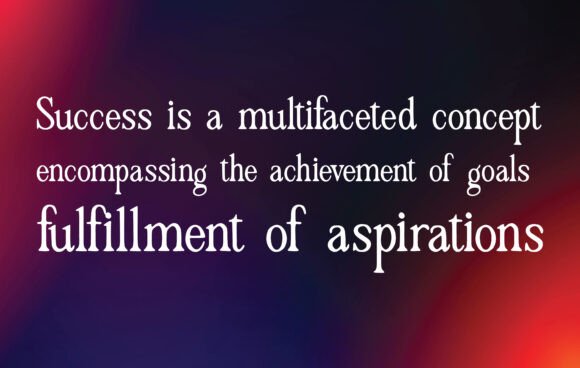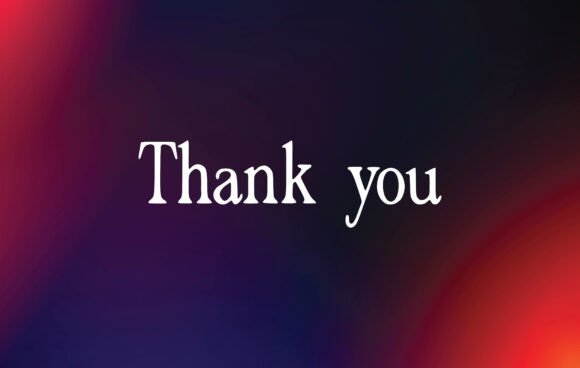
Introducing Azariella Font: The Ultimate Design Companion
Are you tired of using the same old fonts in your designs? Look no further than Azariella Font, the versatile and eye-catching typeface that’s about to become your go-to favorite. This font is designed to bring your creative ideas to life, with a clear and easy-to-read style that’s perfect for both titles and body text.
What Makes Azariella Font So Special?
Azariella Font is more than just a pretty face – it’s a highly functional font that’s designed to meet the needs of designers and crafters. Here are just a few reasons why Azariella Font stands out from the crowd:
- Versatility: Azariella Font is a highly versatile typeface that can be used in a wide range of design applications, from magazine covers and t-shirts to social media posts and branding.
- Readability: With its clear and easy-to-read style, Azariella Font is perfect for both titles and body text. Whether you’re designing a wedding invitation or a greeting card, this font makes it easy to communicate your message.
- Style: Azariella Font has a unique and stylish personality that adds a touch of sophistication to any design. Whether you’re going for a modern, trendy look or a more classic, elegant feel, this font fits right in.
Azariella Font is a dream come true for designers and crafters who are looking for a font that can keep up with their creative vision. Here are just a few ways you can use Azariella Font in your designs:
- Magazine Covers: Use Azariella Font to create eye-catching headlines and titles that grab readers’ attention.
- T-Shirts and Apparel: Add a touch of style and personality to your t-shirt designs with Azariella Font.
- Social Media Posts: Use Azariella Font to create engaging and shareable social media posts that stand out from the crowd.
- Branding: Establish a consistent brand identity with Azariella Font, perfect for logos, business cards, and more.
- Wedding Invitations: Add a touch of elegance and sophistication to your wedding invitations with Azariella Font.
- Greeting Cards: Use Azariella Font to create beautiful and heartfelt greeting cards for any occasion.
Why Choose Azariella Font?
With so many fonts on the market, why choose Azariella Font? Here are just a few reasons why designers and crafters are falling in love with this amazing typeface:
- Easy to Read: Azariella Font is designed to be clear and easy to read, even at small sizes.
- Highly Versatile: This font can be used in a wide range of design applications, from digital to print.
- Unique Style: Azariella Font has a unique and stylish personality that adds a touch of sophistication to any design.
- Time-Saving: With Azariella Font, you can create professional-looking designs in no time – perfect for busy designers and crafters.
In conclusion, Azariella Font is a game-changing typeface that’s about to become your go-to favorite. With its versatility, readability, and stylish personality, this font is perfect for designers and crafters who want to bring their creative ideas to life. Whether you’re designing magazine covers, t-shirts, social media posts, or greeting cards, Azariella Font is the perfect choice. So why wait? Download Azariella Font today and start creating amazing designs that showcase your unique style and personality.